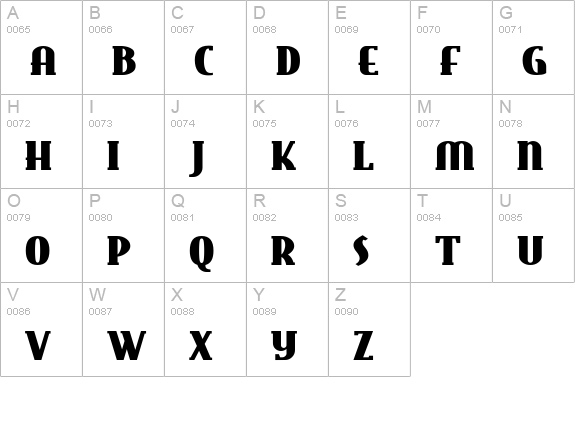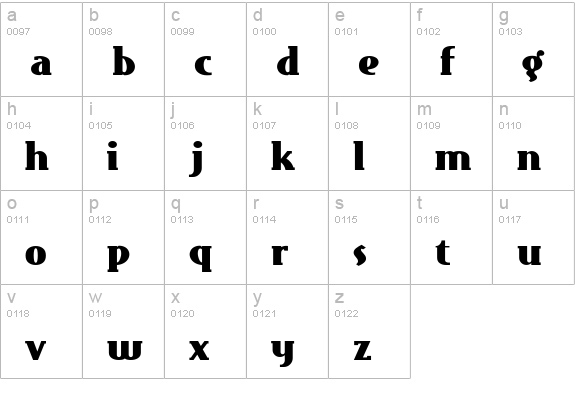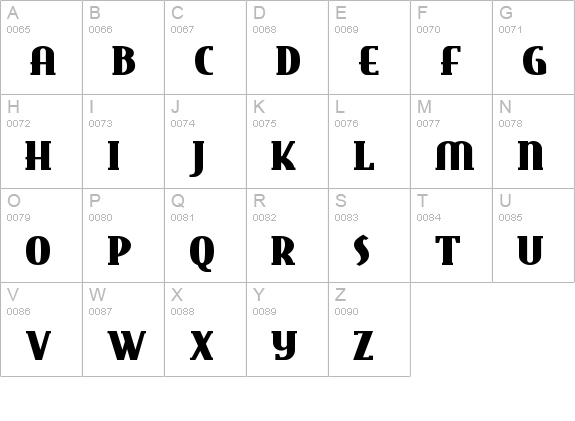
EastMarket Font Details
EastMarket is a stunning and versatile font that embodies the perfect blend of elegance and modernity. Its sleek and sophisticated design makes it the ideal choice for a wide range of creative projects, from branding and logo design to editorial layouts and social media graphics. What sets EastMarket apart is not only its impeccable aesthetics but also its accessibility. This extraordinary font is available for free, allowing designers and enthusiasts alike to unleash their creativity without any limitations. With its graceful curves, clean lines, and unique character variations, EastMarket effortlessly captures attention and adds a touch of sophistication to any design. Whether you're working on a professional project or simply exploring your creative side, EastMarket is the perfect companion to elevate your work to new heights. Its extensive character set ensures compatibility with various languages, making it a truly global font choice. To experience the brilliance of EastMarket, simply head over to FontsMarket.com, where this remarkable font is freely available for download. Join the countless designers who have already fallen in love with EastMarket and let it inspire you to create captivating and memorable designs. Don't miss out on the opportunity to add this exceptional font to your collection and take your creative endeavors to the next level.